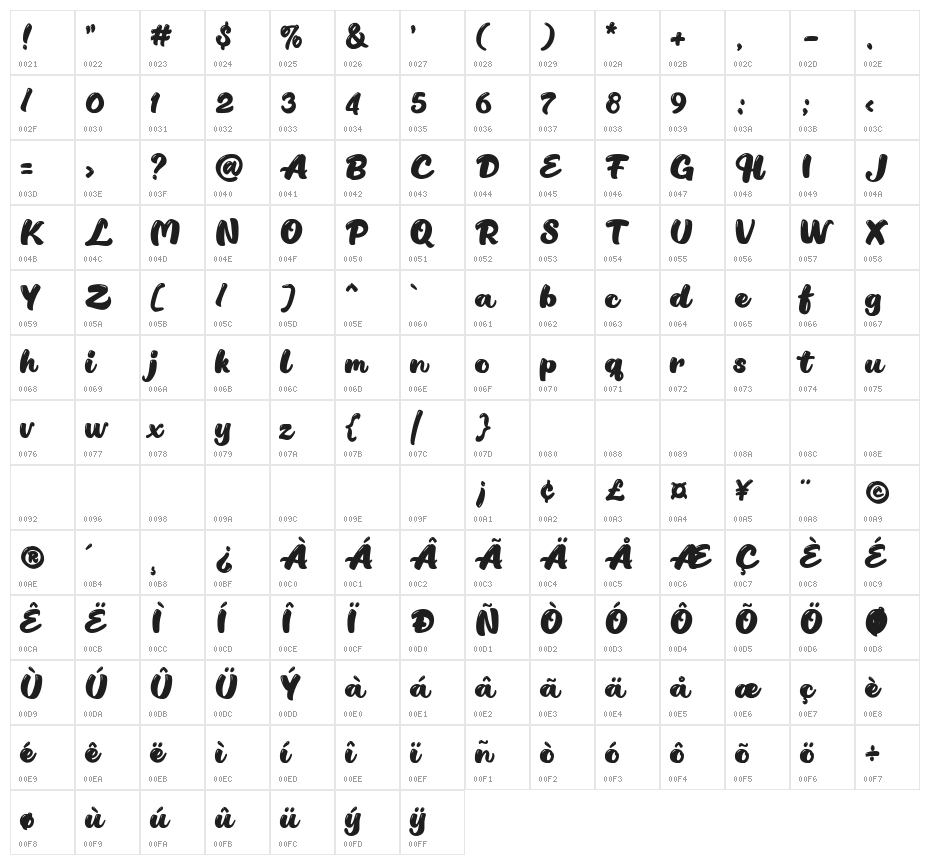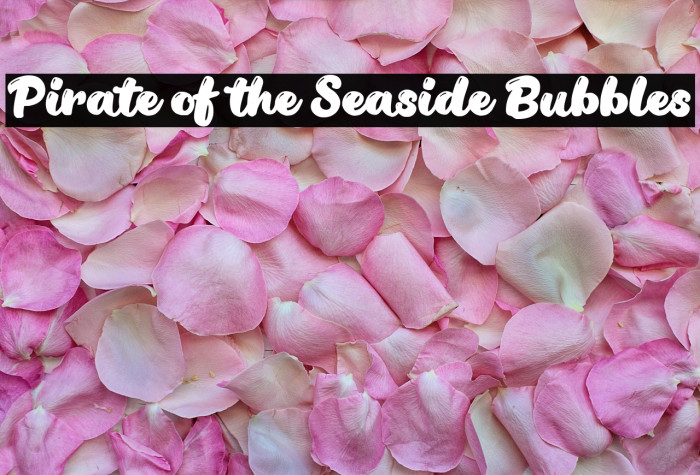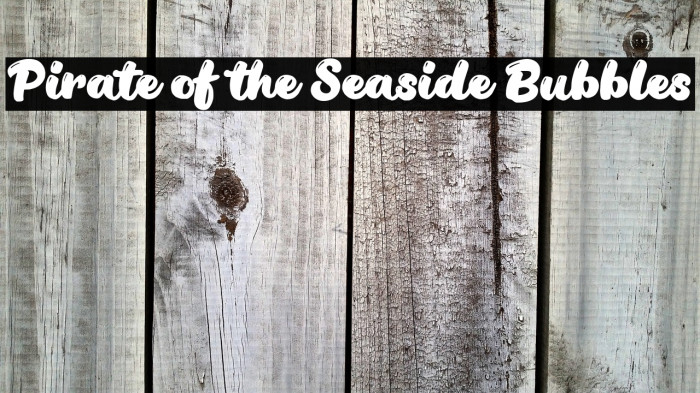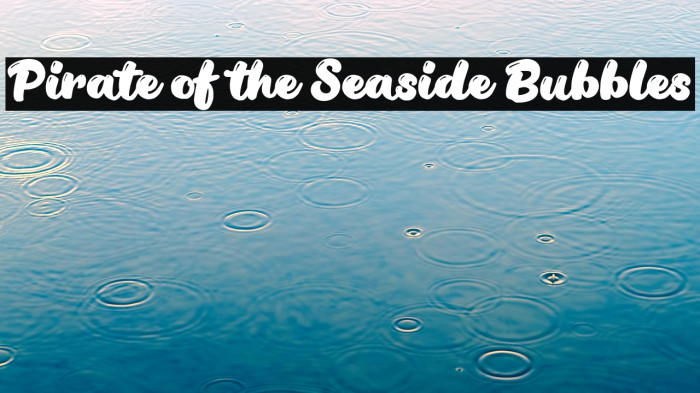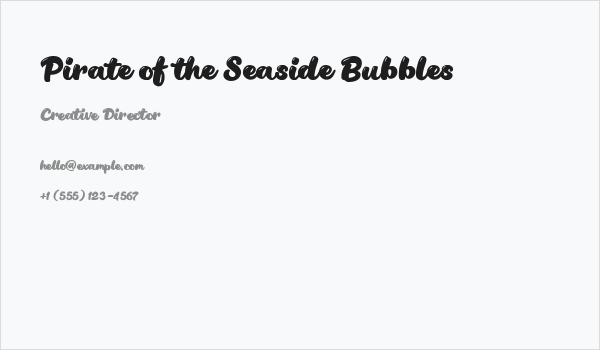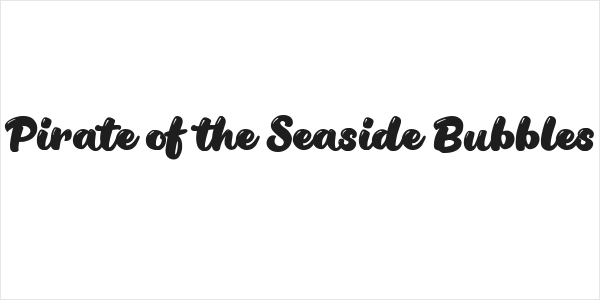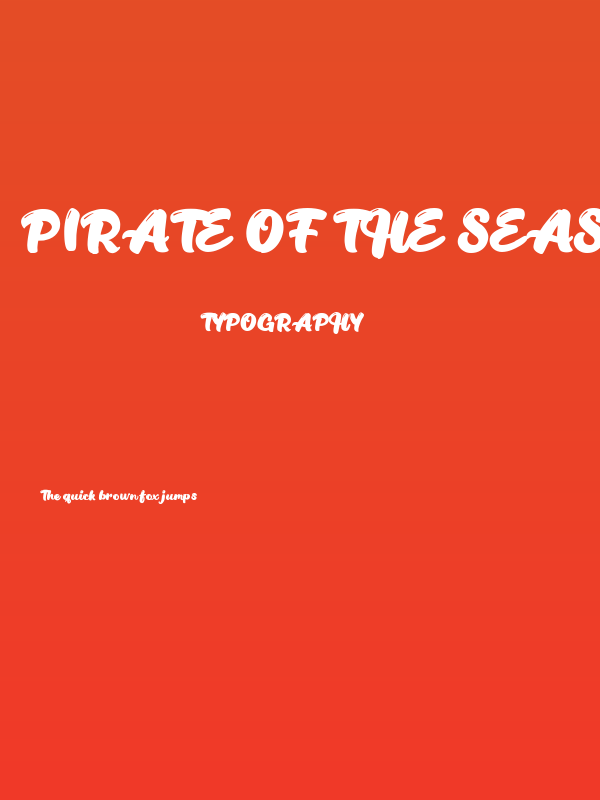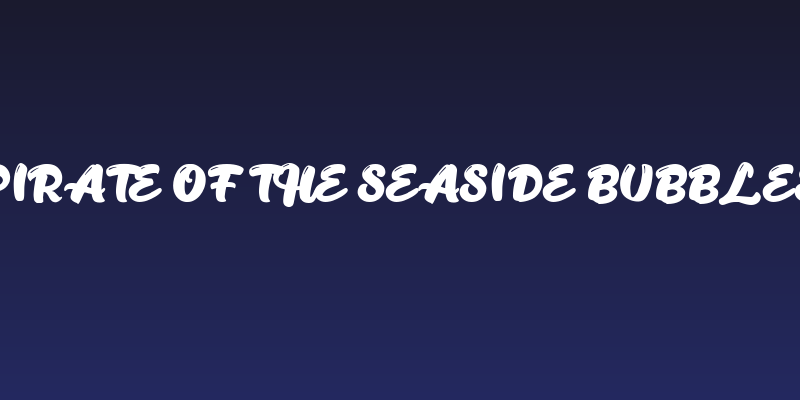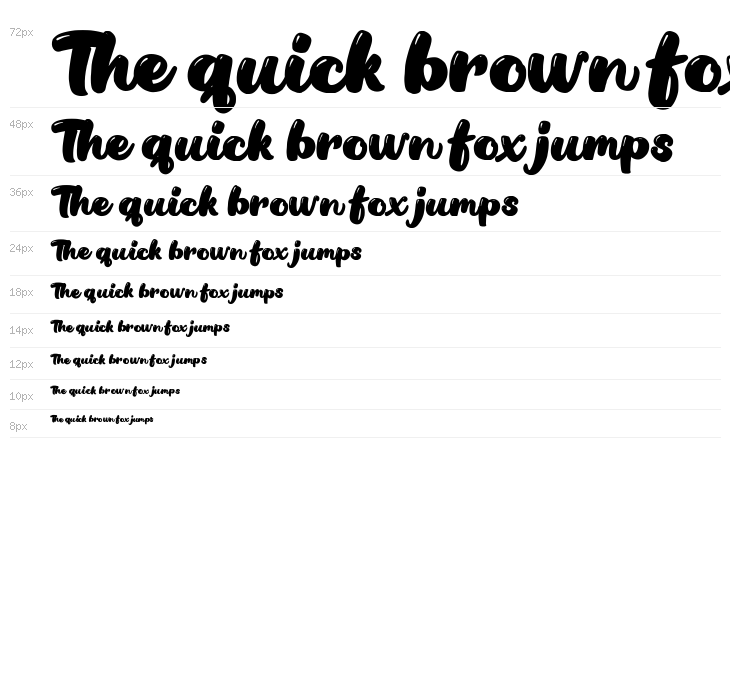
Pirate of the Seaside Bubbles Font
Pirate of the Seaside Bubbles Description
This playful and bold script font features a bubbly and rounded design, reminiscent of seaside adventures and pirate tales. The uppercase letters are robust and dynamic, with a slight slant that adds a sense of movement and excitement. The lowercase letters maintain the same lively spirit, with smooth curves and a consistent flow. Numbers and special characters are designed to match the overall whimsical style, making them perfect for creative projects. The font's thick strokes and rounded edges give it a friendly and approachable feel, ideal for capturing attention in a fun and engaging way.